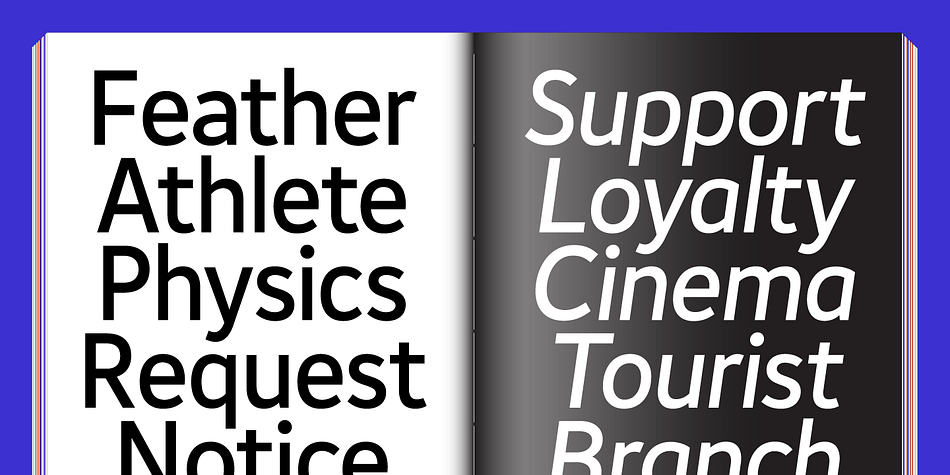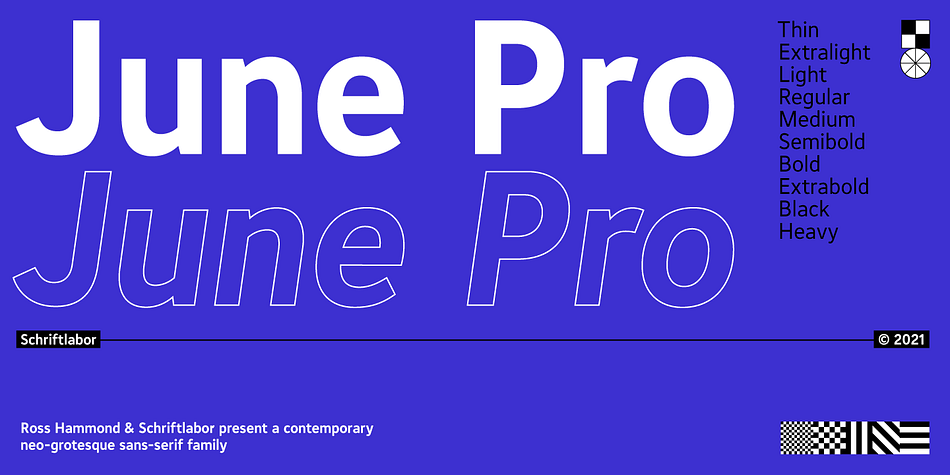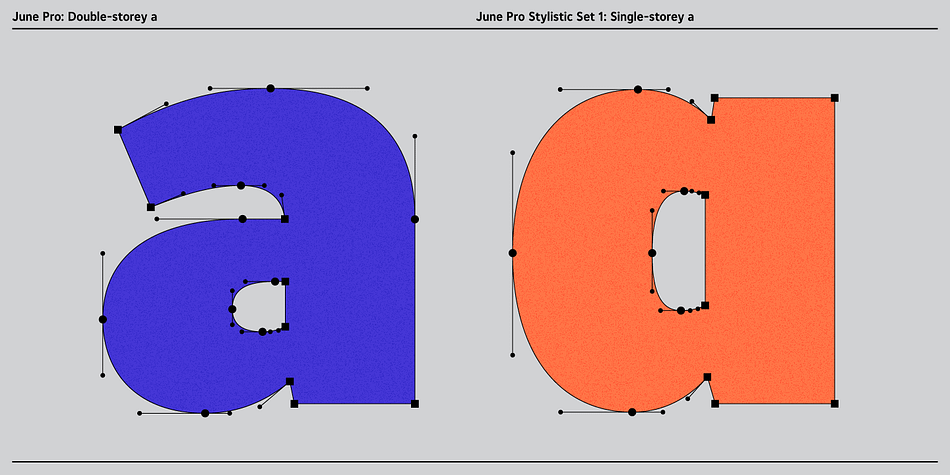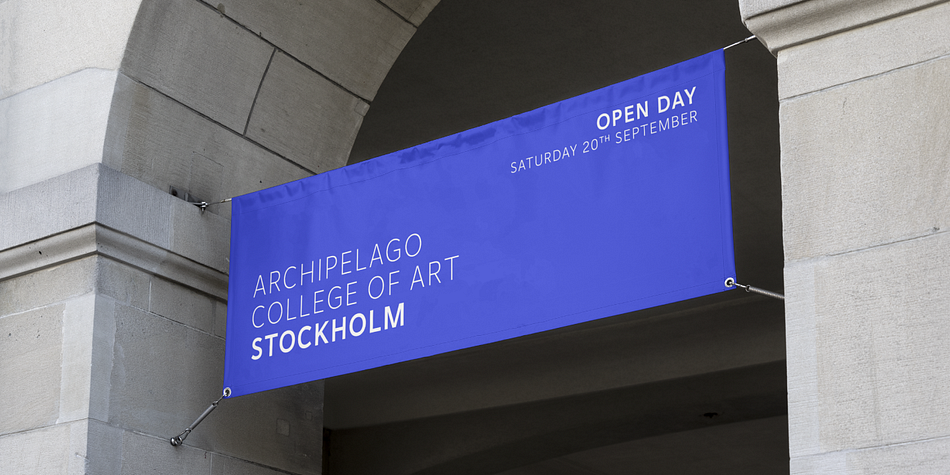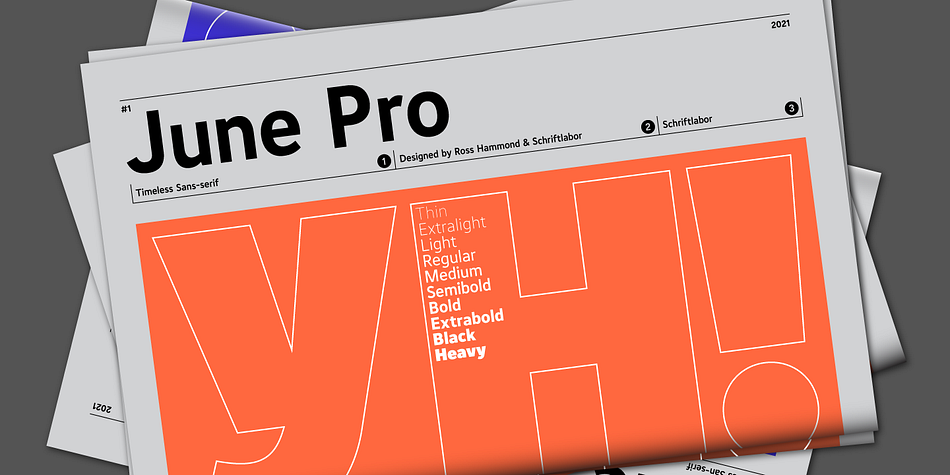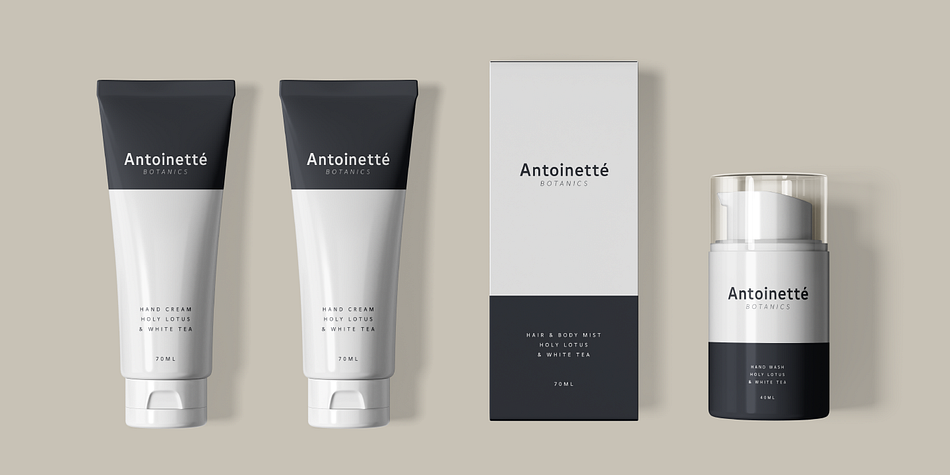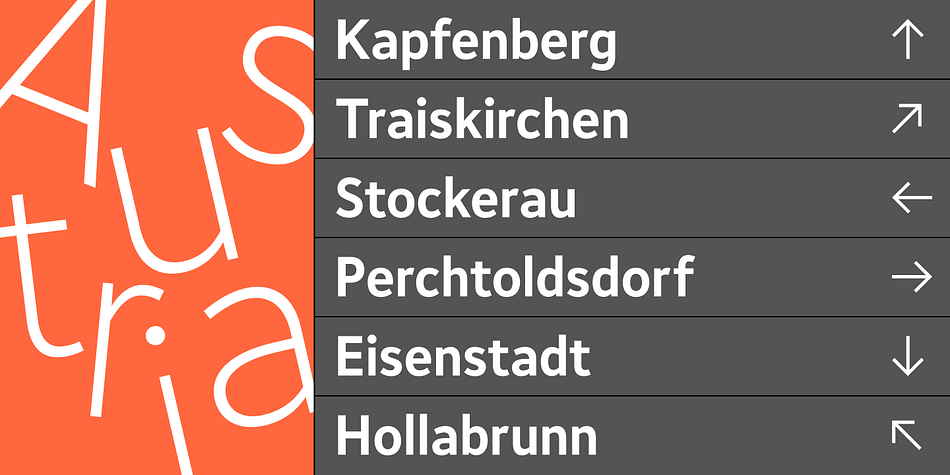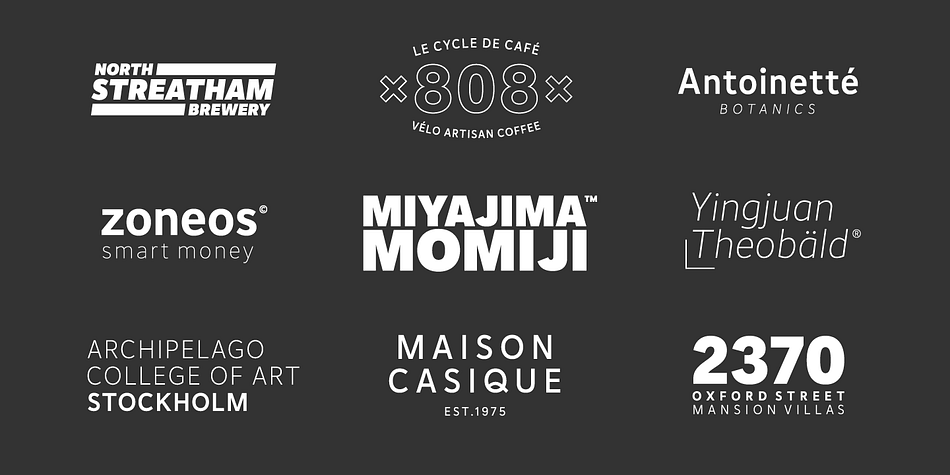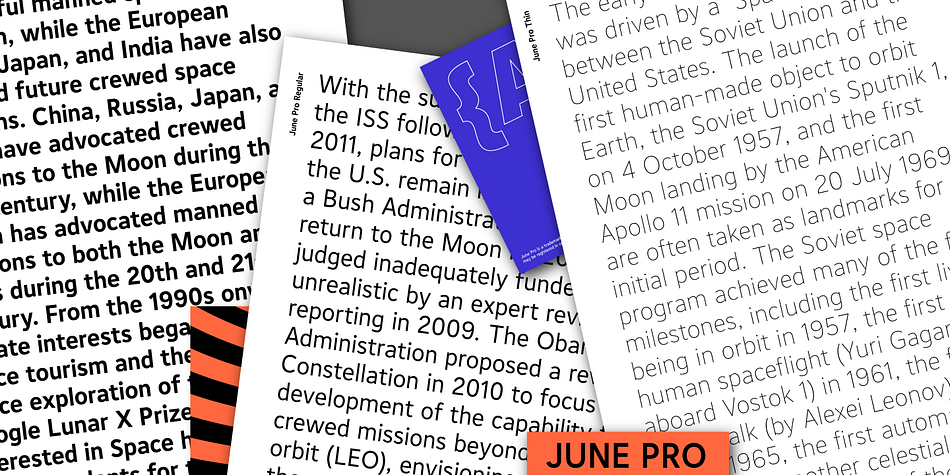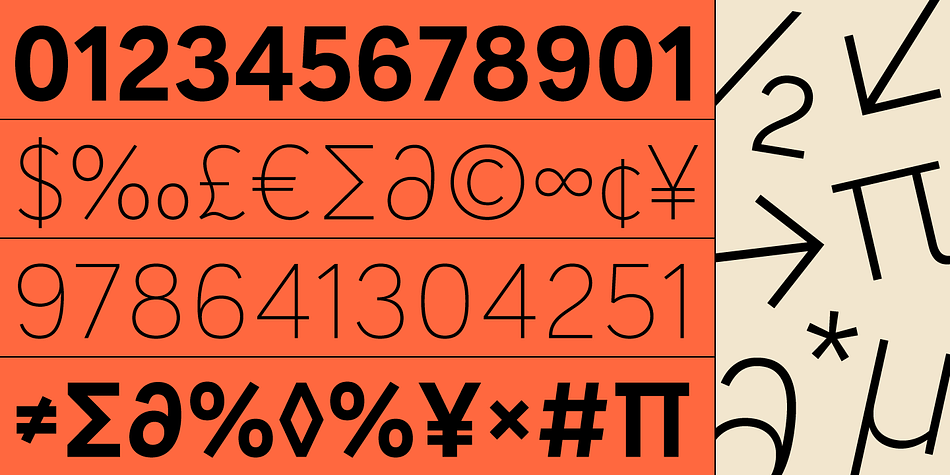
Designed by Ross Hammond, June Pro is a sans serif font family. This typeface has twenty styles and was published by Schriftlabor.
June was first published in 2019 but it got a redesign and upgrade in the character set. It now supports Latin Extended and Vietnamese. It also has OpenType features such as stylistic alternates, case sensitive punctuation, small figures, arrows, superscript, subscript, fractions, and many more.
June Pro was inspired by the work of Adrian Frutiger and his exploration into font design and legibility.
June Pro is a modern sans-serif family in 10 weights ranging from Thin to Heavy with true italics. It was designed with legibility in mind. It is a versatile and distinctive font that makes it useful for various applications like editorial, web design, or branding.
June Pro was designed by Ross Hammond together with Schriftlabor’s team.